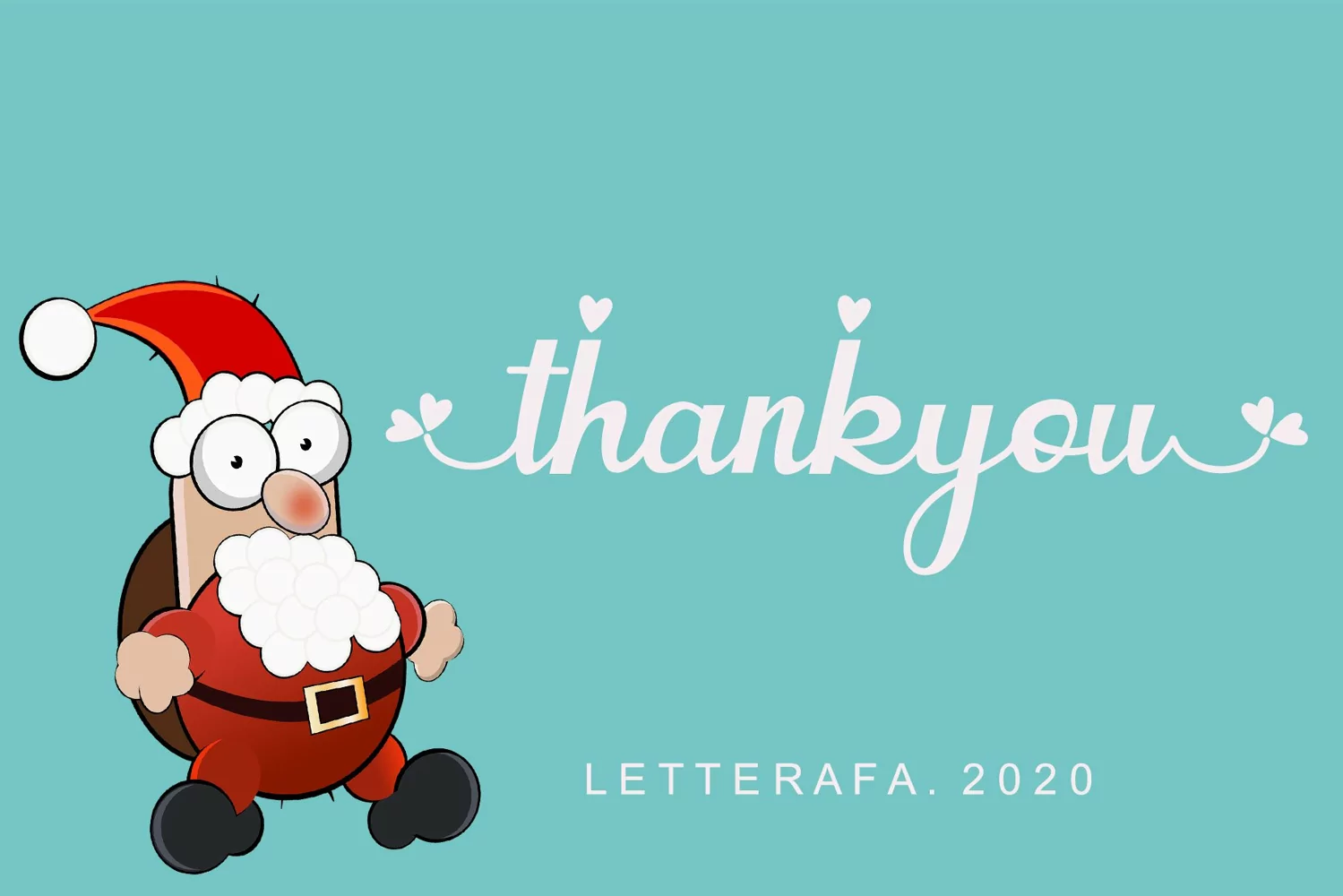
Beautiful Handwritten
Gabriella Font was created by Letterafa Studio. It has flowing letters that will give your designs a unique and sweet look. Gabriella font is perfect; logos, greeting cards, a package design, a brand identity, craft design, any DIY project, book title, wedding invitation, packaging, and more.